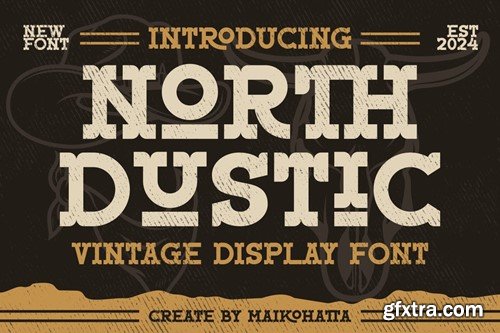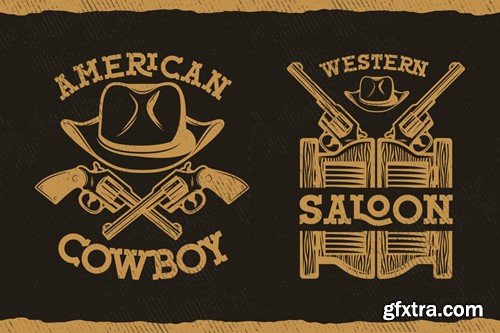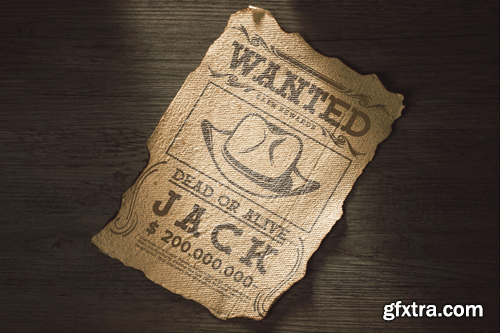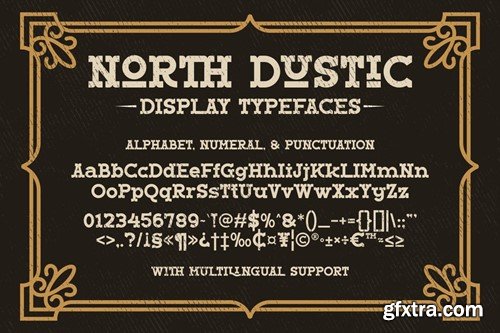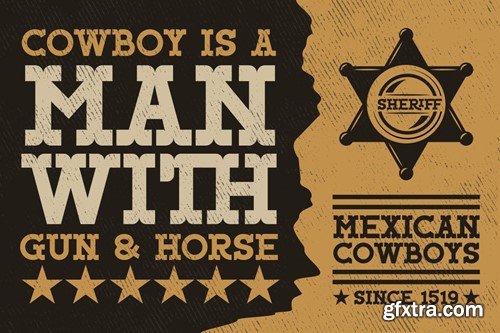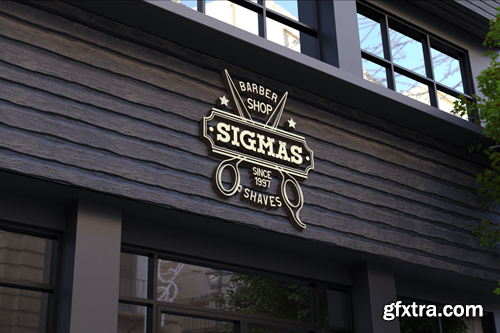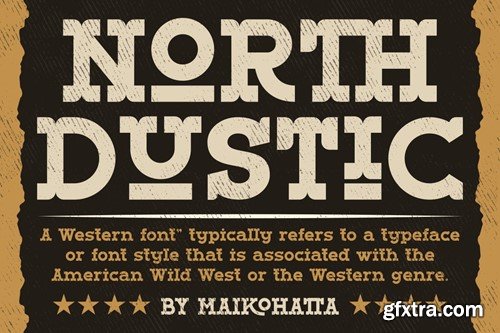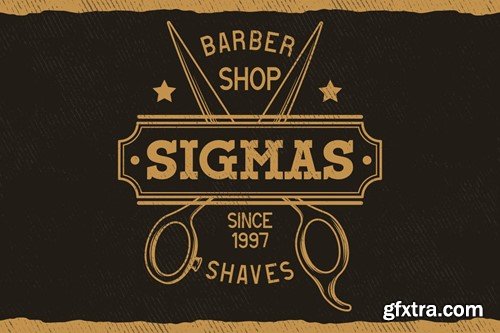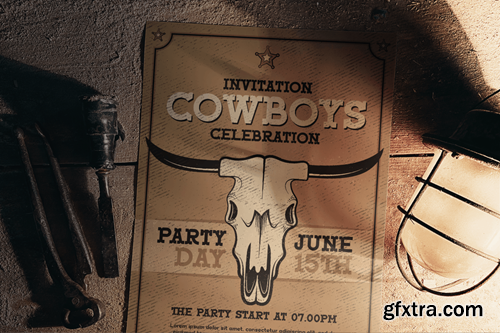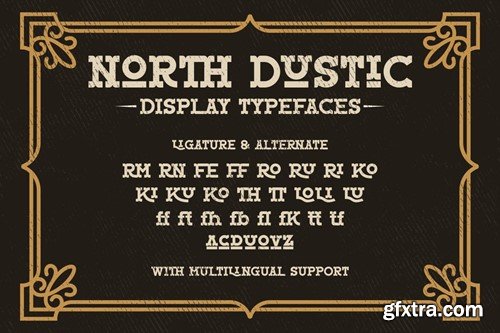
North Dustic - Vintage Display Font
Introducing our new product North Dustic - Vintage Display Font
This font features a balanced proportion of stroke thickness and fineness, creating attractive and easy-to-read visuals. This modern serif style is often characterized by a bold distinction between thick and thin lines, providing a touch that is understated but still stands out.
• Uppercase
• Lowercase
• Multilingual
• Ligature
• Alternate